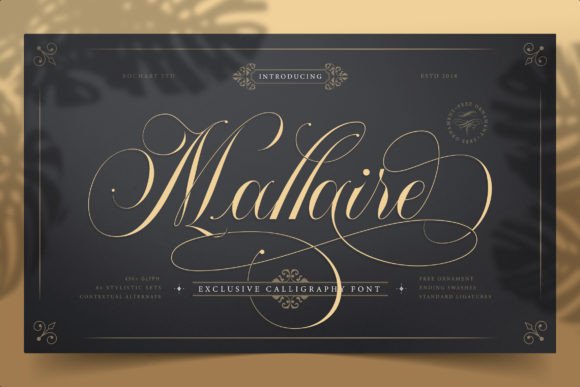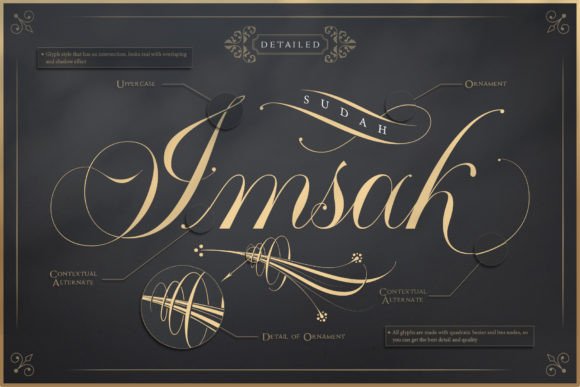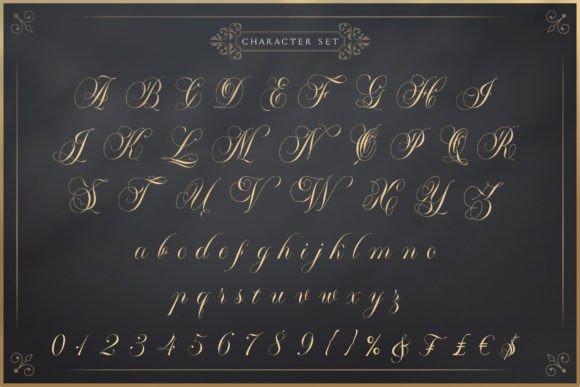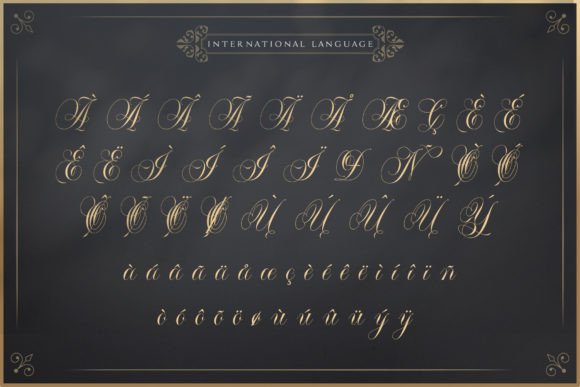
Mallaire Font: Elegant Calligraphy for Wedding & Logo Design
About the Mallaire Font
Meet Mallaire Font, a stunning font that brings a touch of elegance and professionalism to any design. Mallaire is a calligraphy font with an exclusive style and a touch of classic, inspired by the handwriting of ancient manuscripts. Carefully designed to work together in harmony that makes it very suitable for wedding media, book covers, greeting cards, logos, branding, business cards and certificates, even for any design work that requires a classic, formal or luxurious.
Mallaire’s elegant and formal personality makes it ideal for projects requiring a touch of classic sophistication. It excels in headlines, logos, and short text blocks on branding materials like business cards and invitations. Consider it for packaging where a premium feel is desired, or for posters promoting high-end products or events. However, its intricate detail makes it less suitable for body text or UI elements where readability is paramount.
Pairing Mallaire effectively depends on the desired balance. For a classic, refined look, consider pairing it with a clean serif like Garamond or a geometric sans-serif such as Futura. To inject a touch of modernity, a neutral sans-serif like Lato could work well. Avoid pairing it with overly playful or heavily stylized fonts which might clash with its graceful character.
Mallaire’s strength lies in conveying luxury and tradition. Brands focused on heritage, craftsmanship, or high-end products will find it particularly effective. Think bespoke tailoring, fine jewelry, or artisanal food. The font’s inherent formality also makes it well-suited for legal or financial institutions aiming for a sophisticated image.